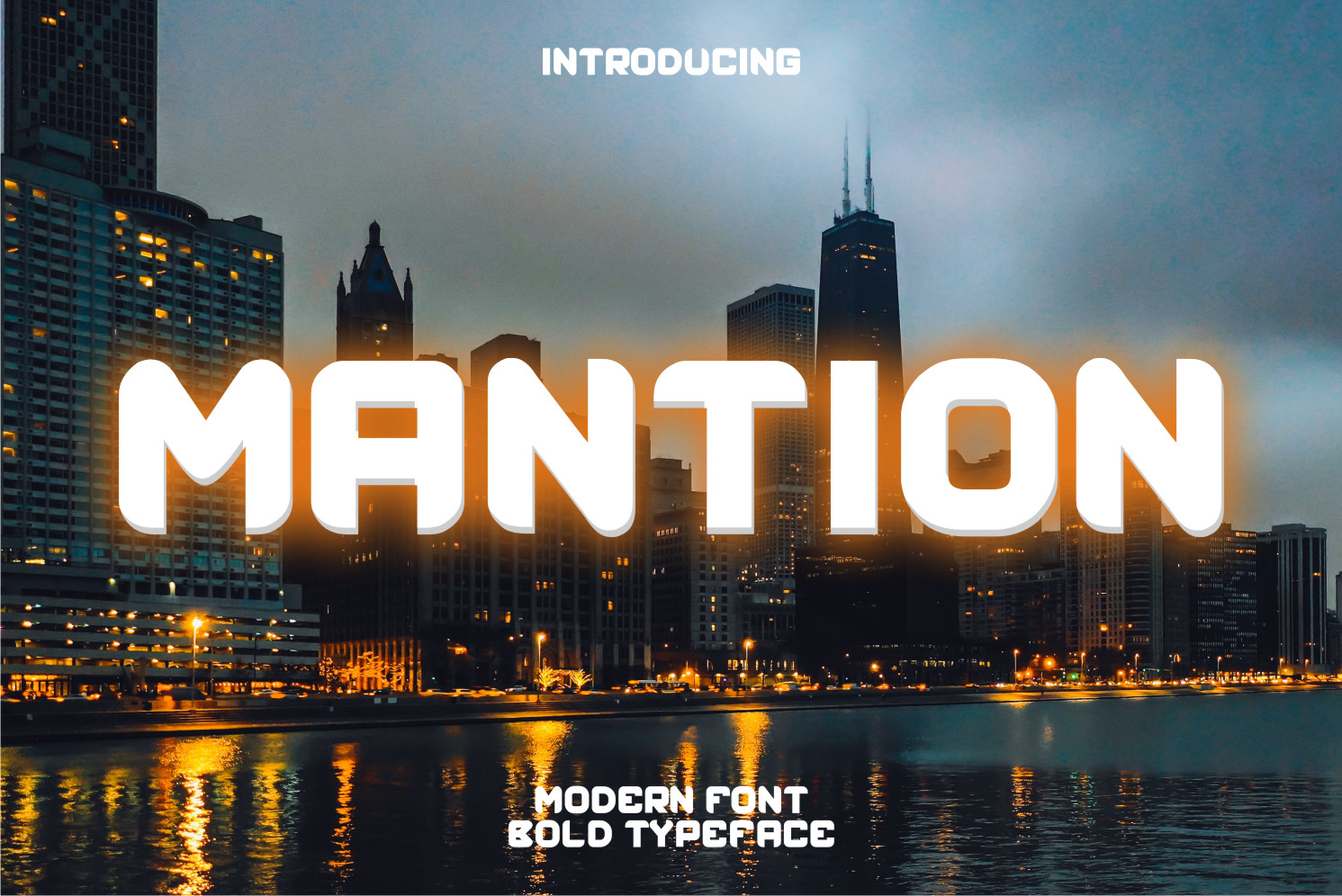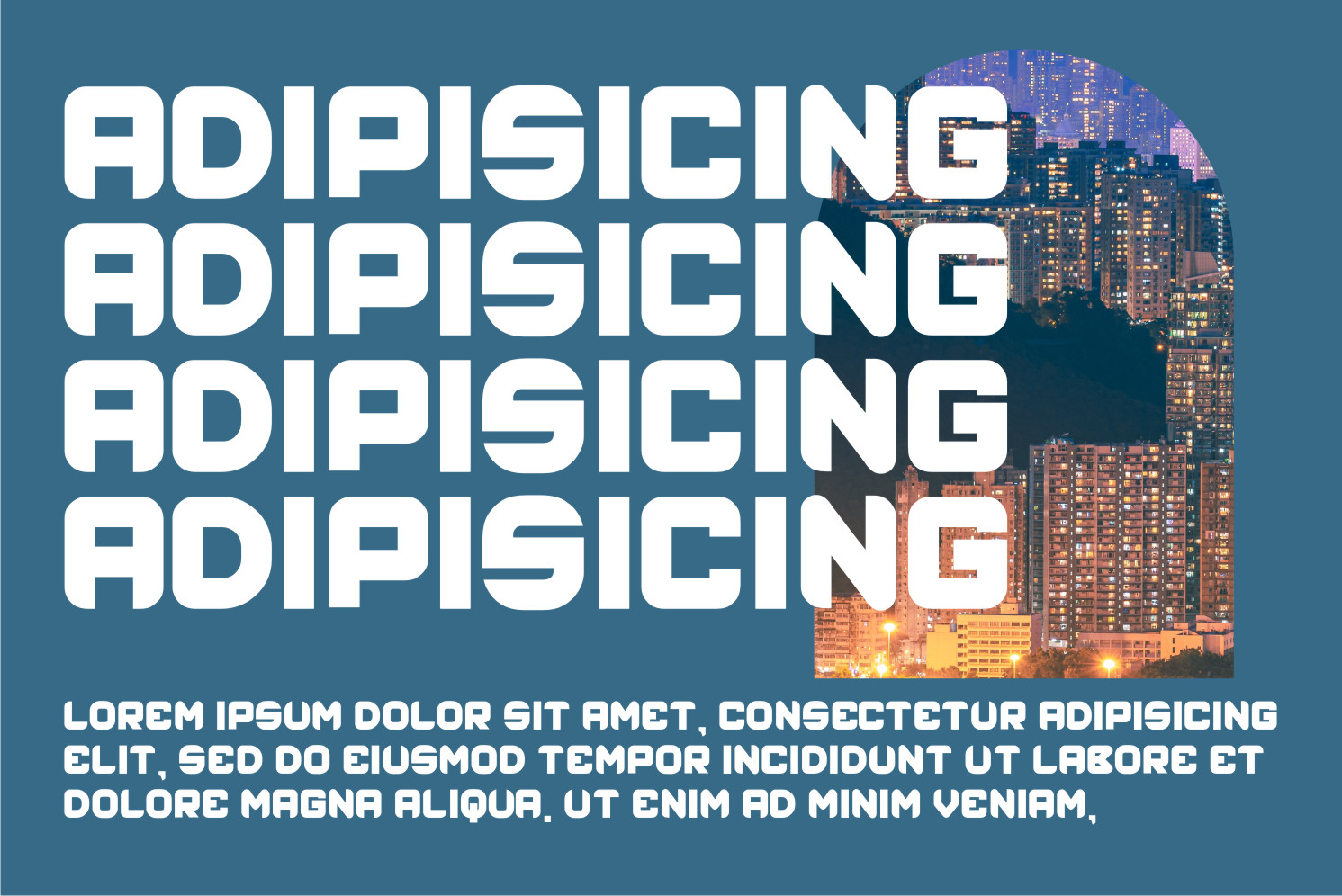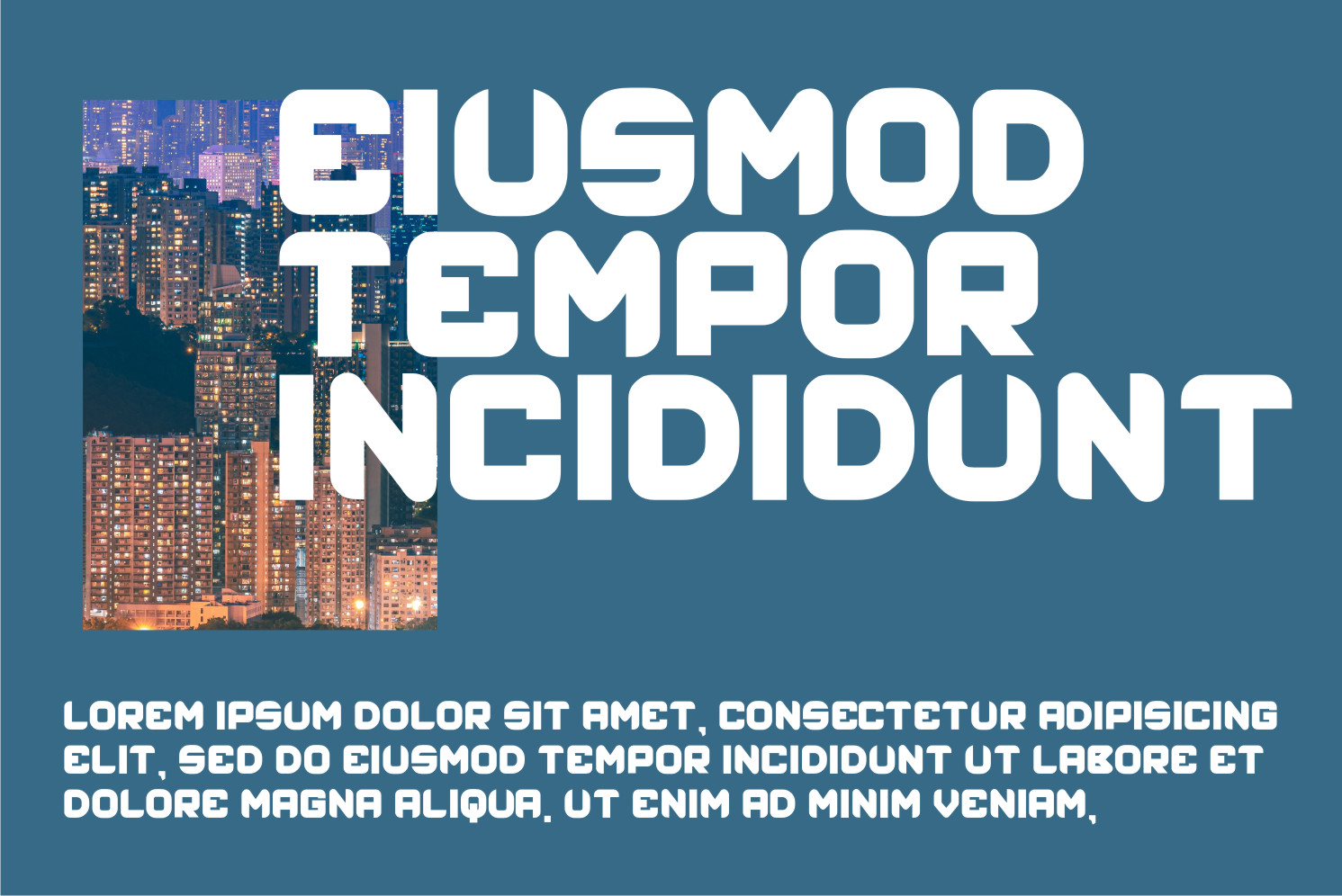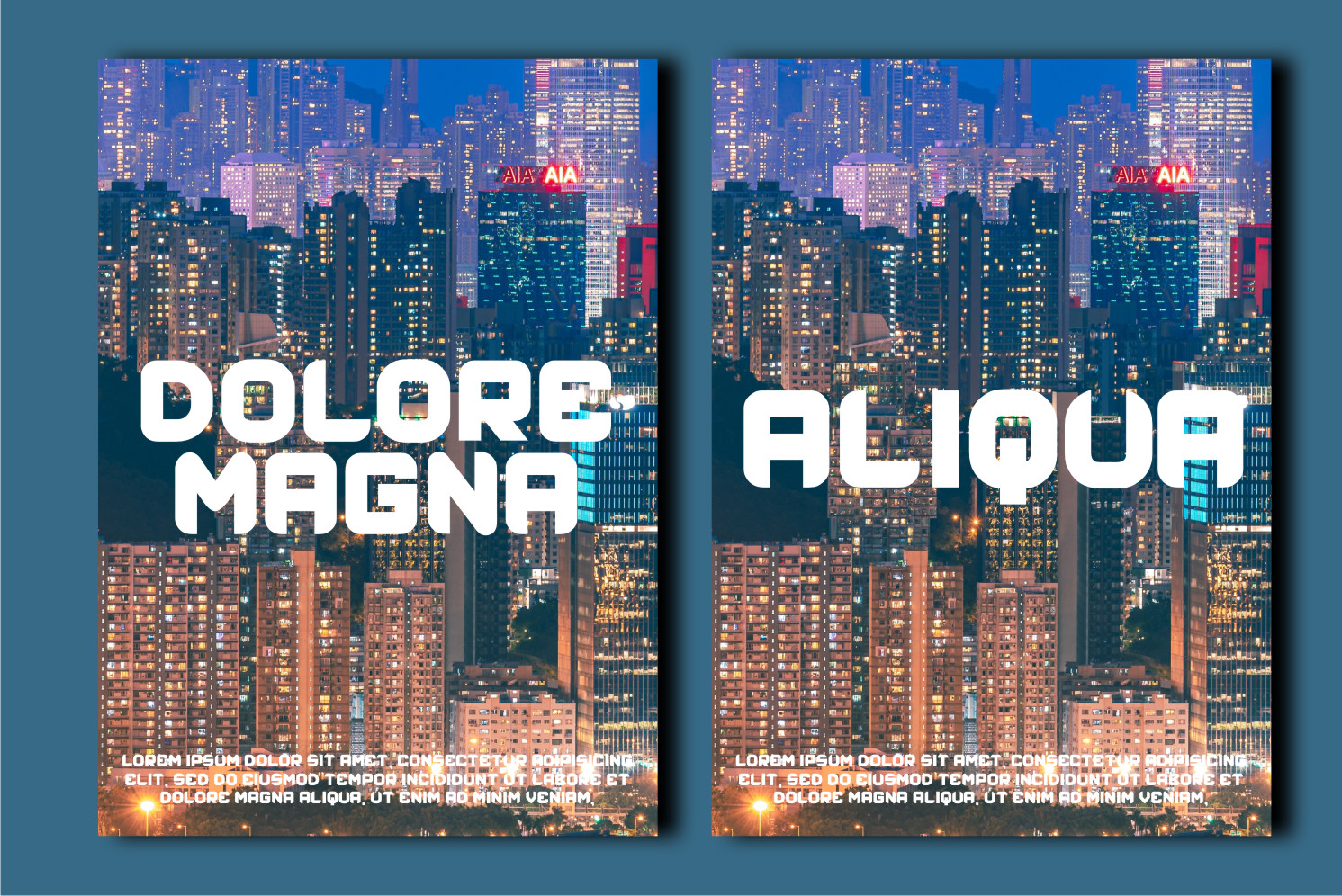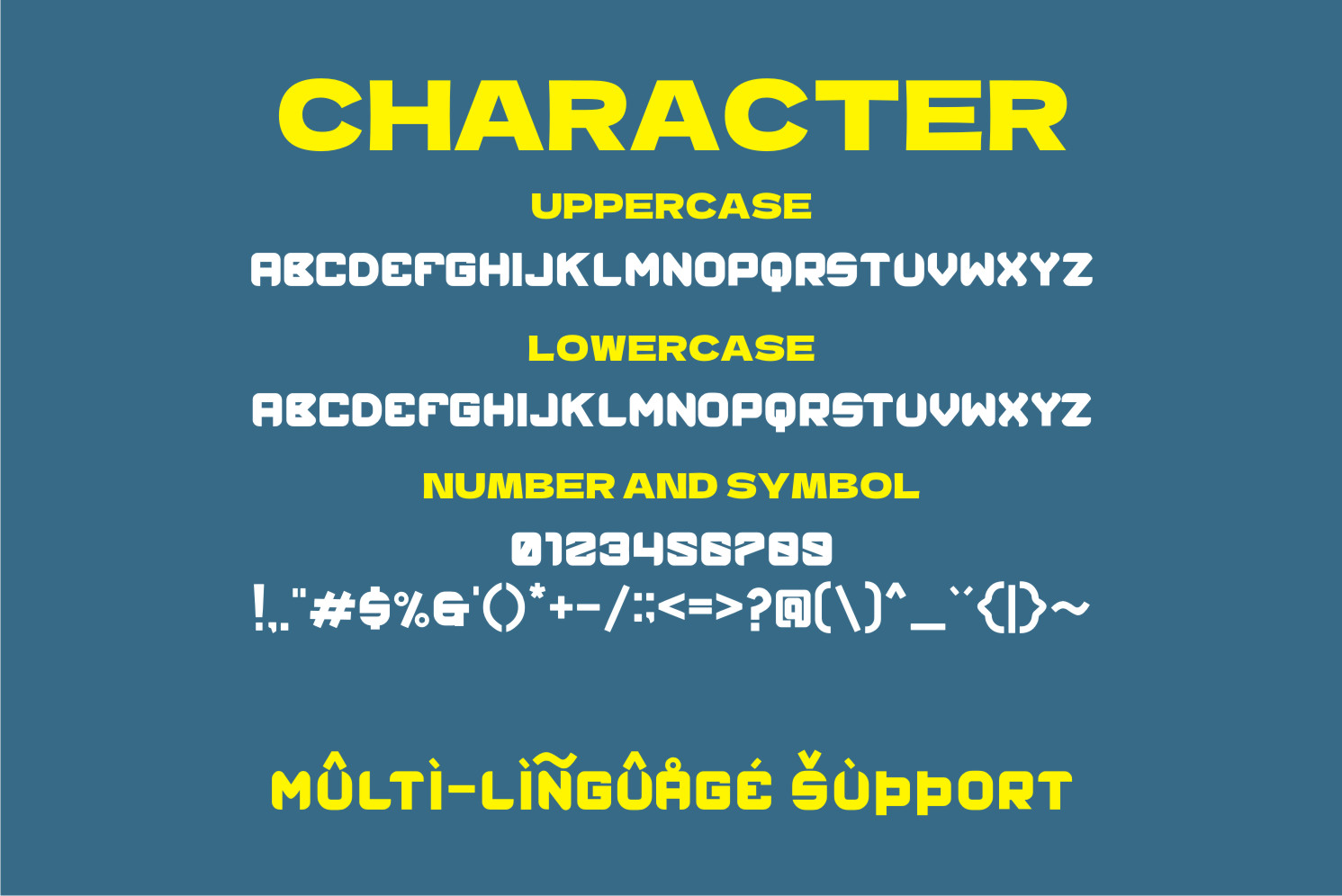
Mantion Font
Mantion Display Font
It’s a cool and modern-styled display font. This font is ideal for web designs, business cards, or pretty much anything else that requires a futuristic touch.